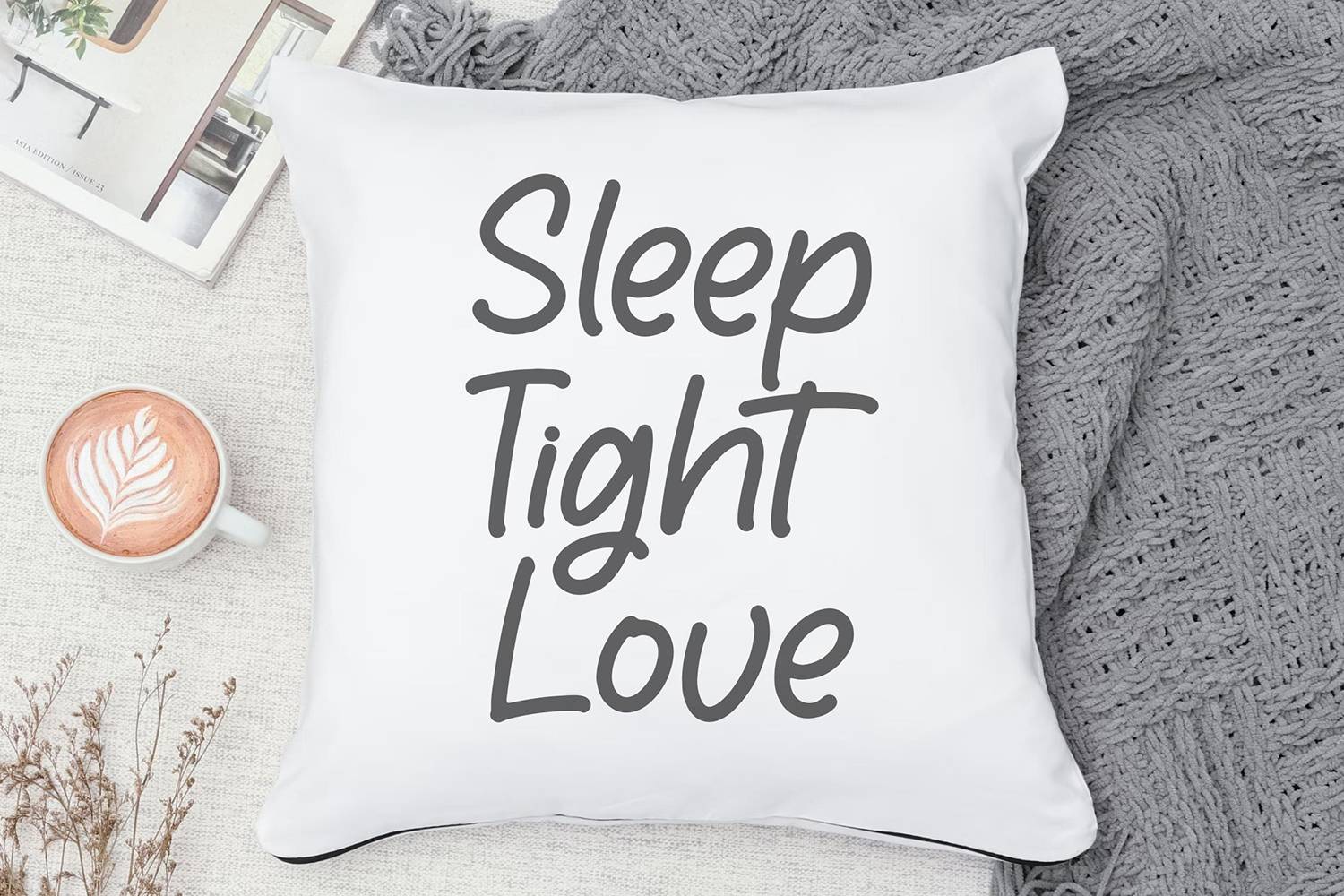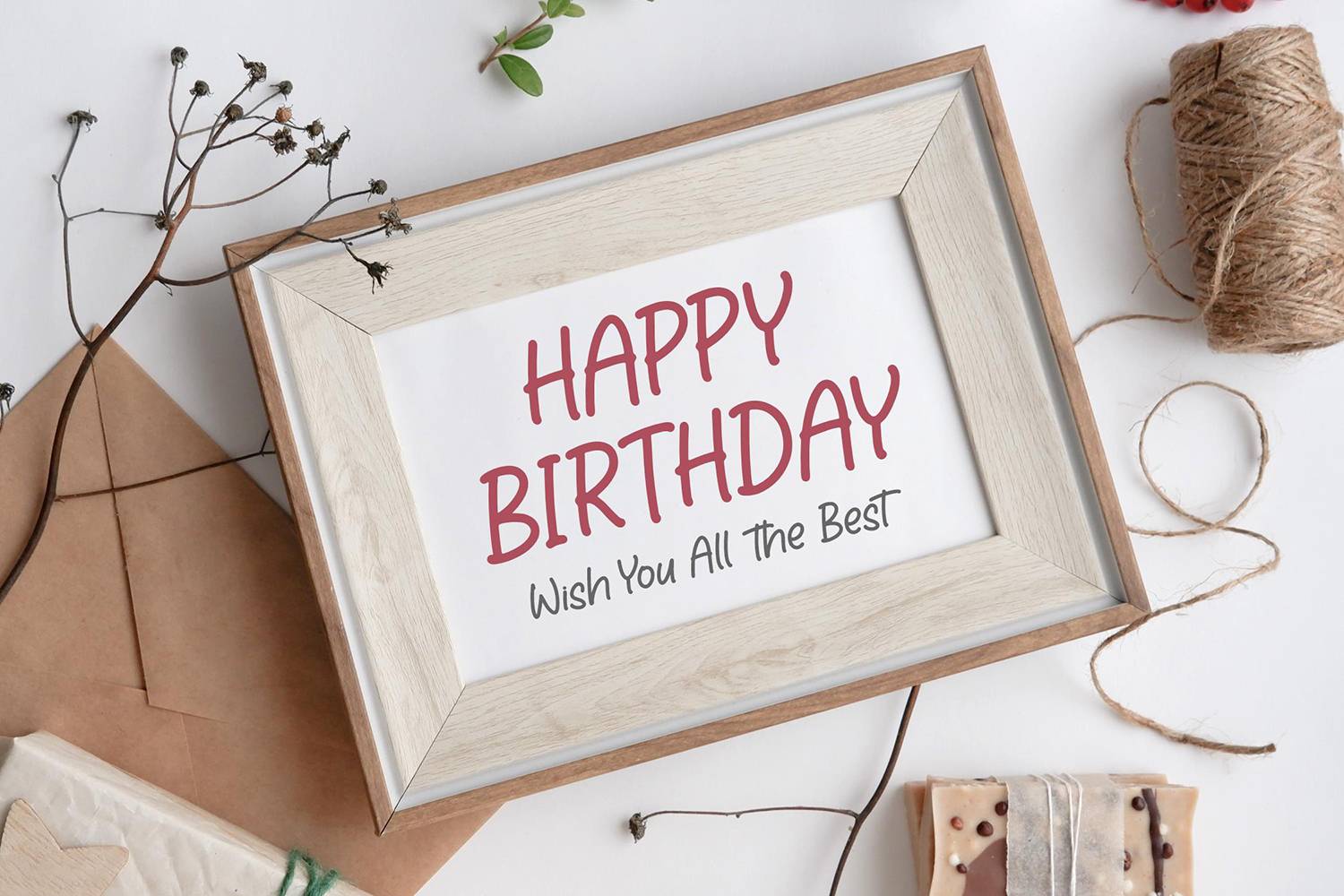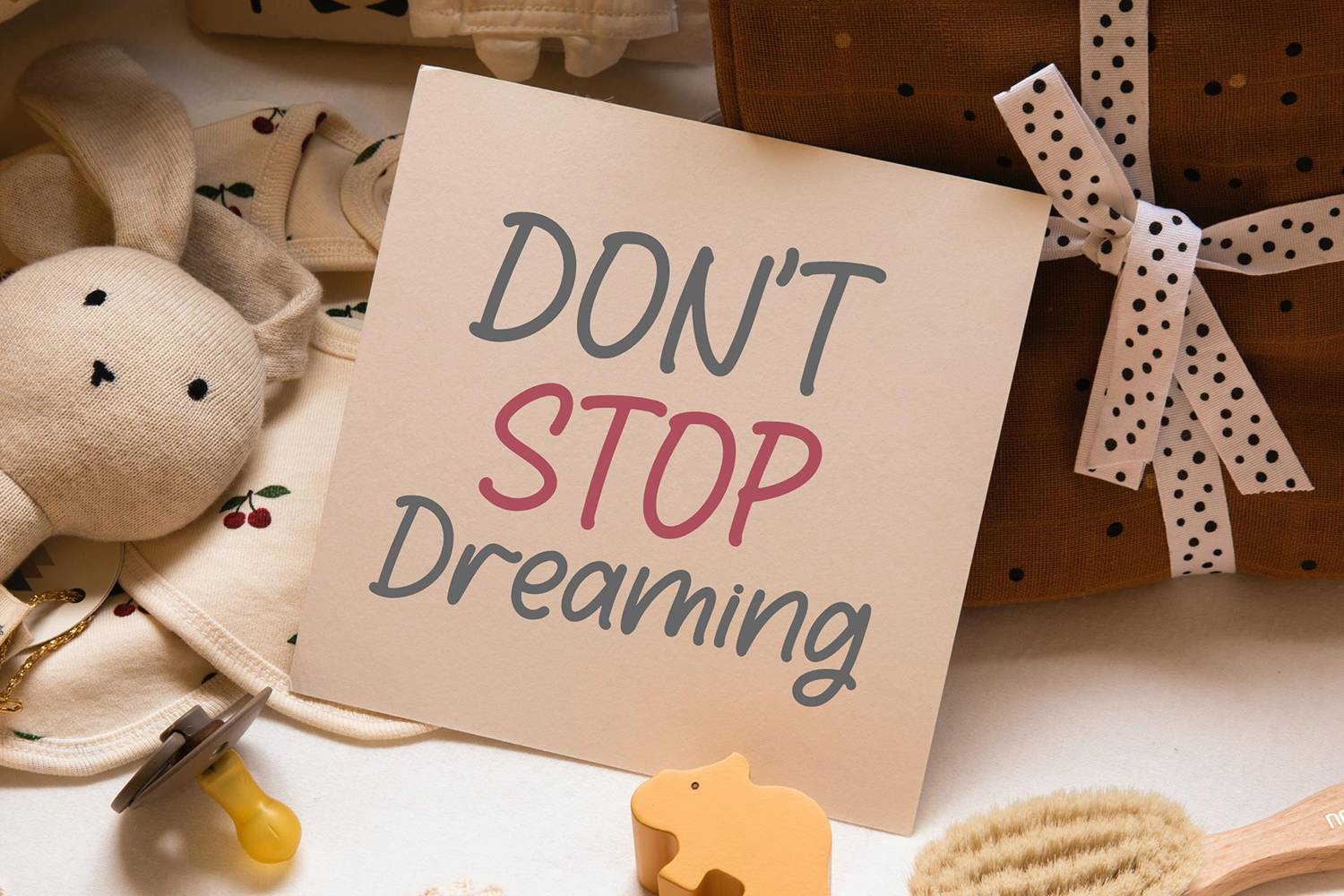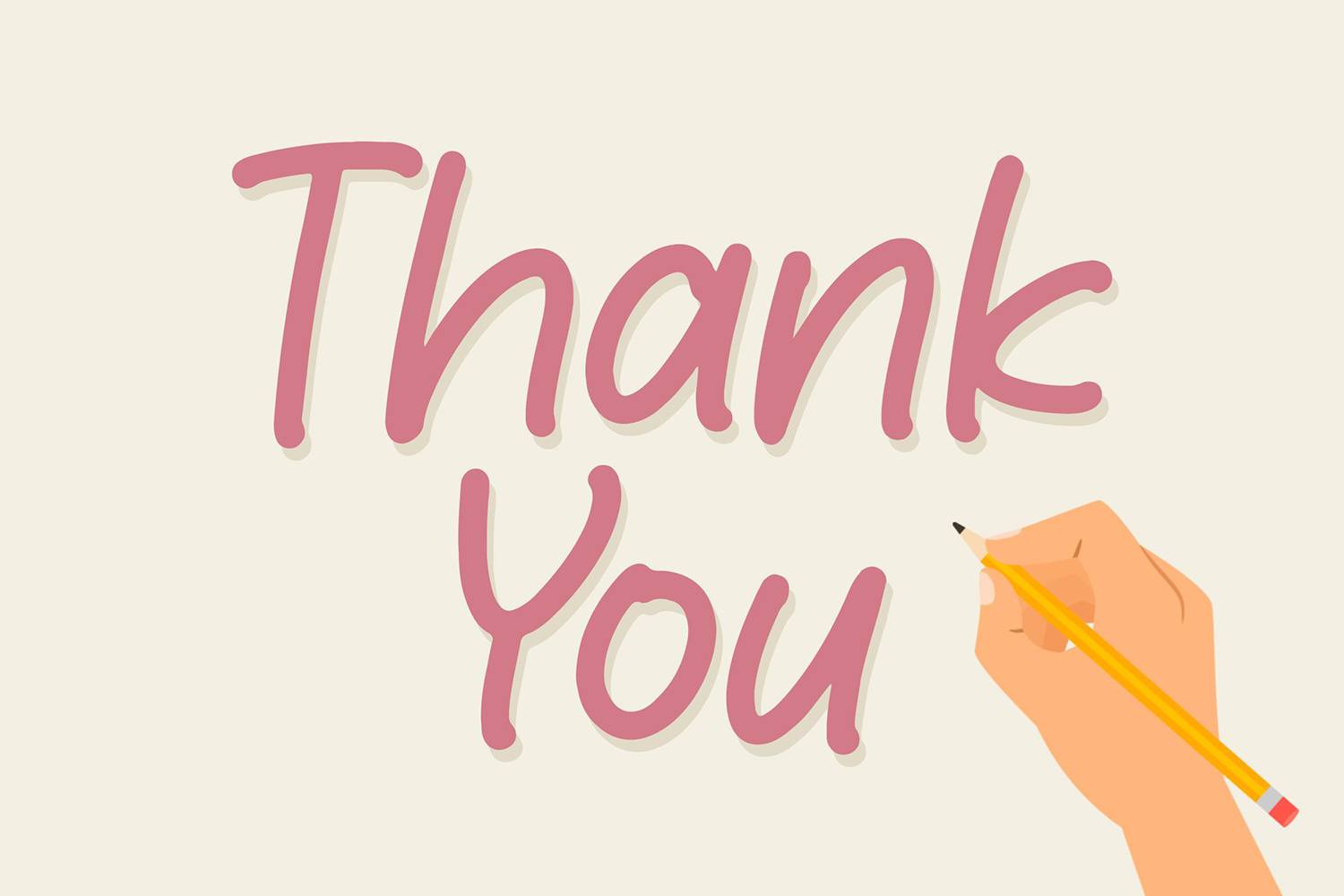
Stylish Quotes Font is a casual, handwritten script that feels friendly and approachable with its slightly playful, organic letterforms. Its medium weight and smooth, flowing strokes make it perfect for informal branding, personal messages, or creative projects that want to convey warmth and personality without sacrificing readability. This font works well for quotes, social media graphics, greeting cards, and any design seeking a relaxed yet stylish handwritten touch.
Stylish Quotes Font
About Stylish Quotes Font